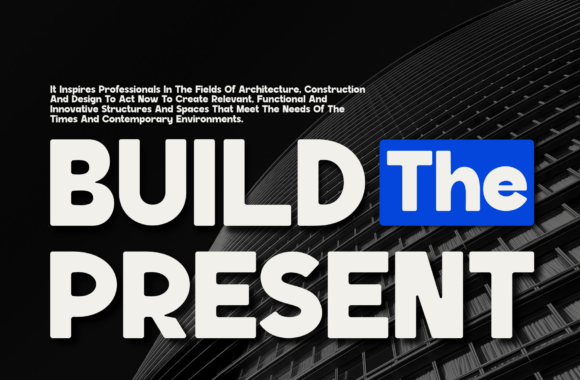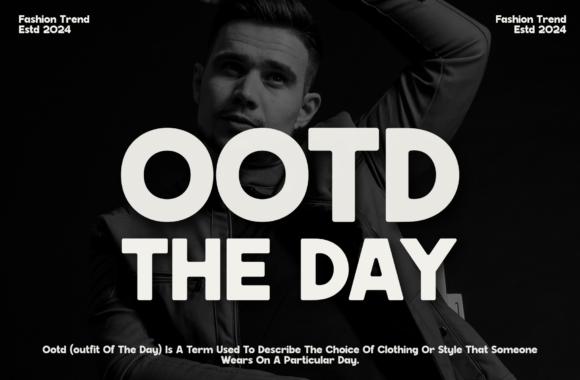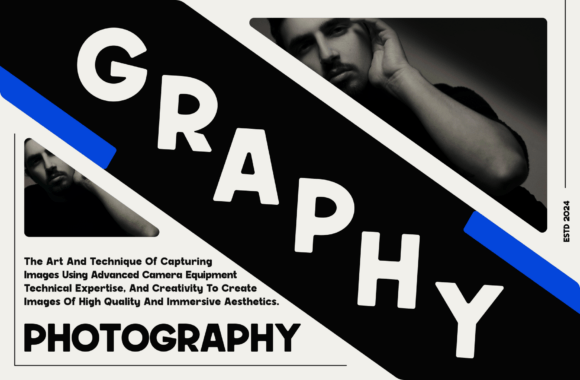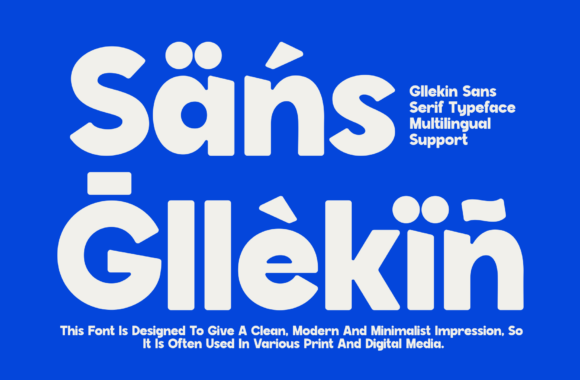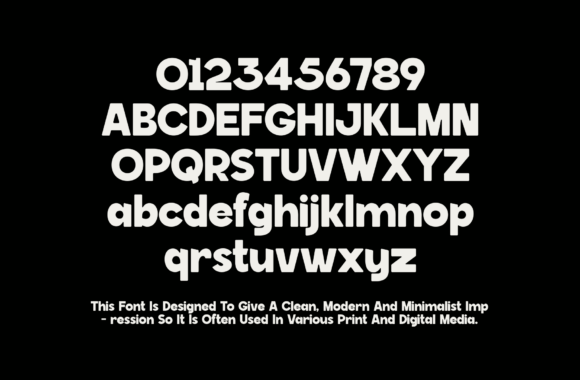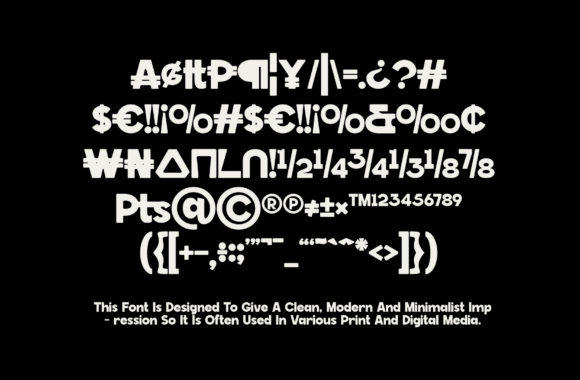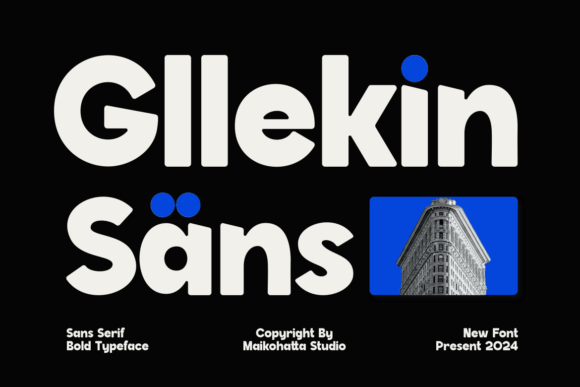
Introducing Gllekin: The Modern Sans Serif Typeface for Graphic Design and Modern Typography
In the world of graphic design and modern typography, the right font can make all the difference. A well-designed font can elevate a project, convey a message, and leave a lasting impression. That’s why we’re excited to introduce Gllekin, a modern sans serif typeface that’s designed to provide a clean, professional, and contemporary look. With its simplicity, visual appeal, and flexibility, Gllekin is the perfect choice for designers and crafters looking to take their projects to the next level.
What is Gllekin?
Gllekin is a modern sans serif typeface that’s designed to be versatile and adaptable. Its clean lines, simple shapes, and minimalist aesthetic make it an excellent choice for a wide range of design contexts. Whether you’re working on a logo, branding project, website, or print material, Gllekin provides a professional and contemporary look that’s sure to impress.
Key Features of Gllekin
So, what makes Gllekin stand out from other fonts? Here are some of its key features:
- Clean and Simple Design: Gllekin’s design is characterized by clean lines, simple shapes, and a minimalist aesthetic. This makes it perfect for designs that require a professional and contemporary look.
- Flexibility: Gllekin is a very flexible font that can be used in a variety of design contexts. Whether you’re working on a logo, branding project, website, or print material, Gllekin adapts seamlessly.
- Legibility: Gllekin is designed to be highly legible, even at small sizes. This makes it perfect for body text, captions, and other applications where readability is crucial.
- Visual Appeal: Gllekin’s simple and clean design makes it visually appealing, even at large sizes. This makes it perfect for headlines, titles, and other applications where impact is key.
Why Choose Gllekin?
With so many fonts available, why choose Gllekin? Here are just a few reasons:
- Unique and Modern Look: Gllekin provides a unique and modern look that’s sure to stand out from the crowd. Its clean lines and simple shapes make it perfect for designs that require a professional and contemporary aesthetic.
- Versatility: Gllekin is an incredibly versatile font that can be used in a wide range of design contexts. Whether you’re working on a logo, branding project, website, or print material, Gllekin adapts seamlessly.
- Easy to Read: Gllekin is designed to be highly legible, even at small sizes. This makes it perfect for body text, captions, and other applications where readability is crucial.
- Time-Saving: With Gllekin, you can save time and effort by using a single font for multiple design projects. Its versatility and legibility make it an excellent choice for designers who need to work efficiently.
How to Use Gllekin
Gllekin is easy to use and can be applied to a wide range of design projects. Here are just a few examples:
- Logo Design: Use Gllekin to create a modern and professional logo that stands out from the crowd.
- Branding: Apply Gllekin to your branding materials, such as business cards, letterheads, and brochures, to create a consistent and professional look.
- Web Design: Use Gllekin as a web font to create a clean and modern website that provides an excellent user experience.
- Print Materials: Apply Gllekin to your print materials, such as posters, flyers, and booklets, to create a professional and eye-catching design.
In conclusion, Gllekin is a modern sans serif typeface that’s designed to provide a clean, professional, and contemporary look. With its simplicity, visual appeal, and flexibility, Gllekin is the perfect choice for designers and crafters looking to take their projects to the next level. Whether you’re working on a logo, branding project, website, or print material, Gllekin adapts seamlessly and provides an excellent user experience. Try Gllekin today and discover the power of modern typography!